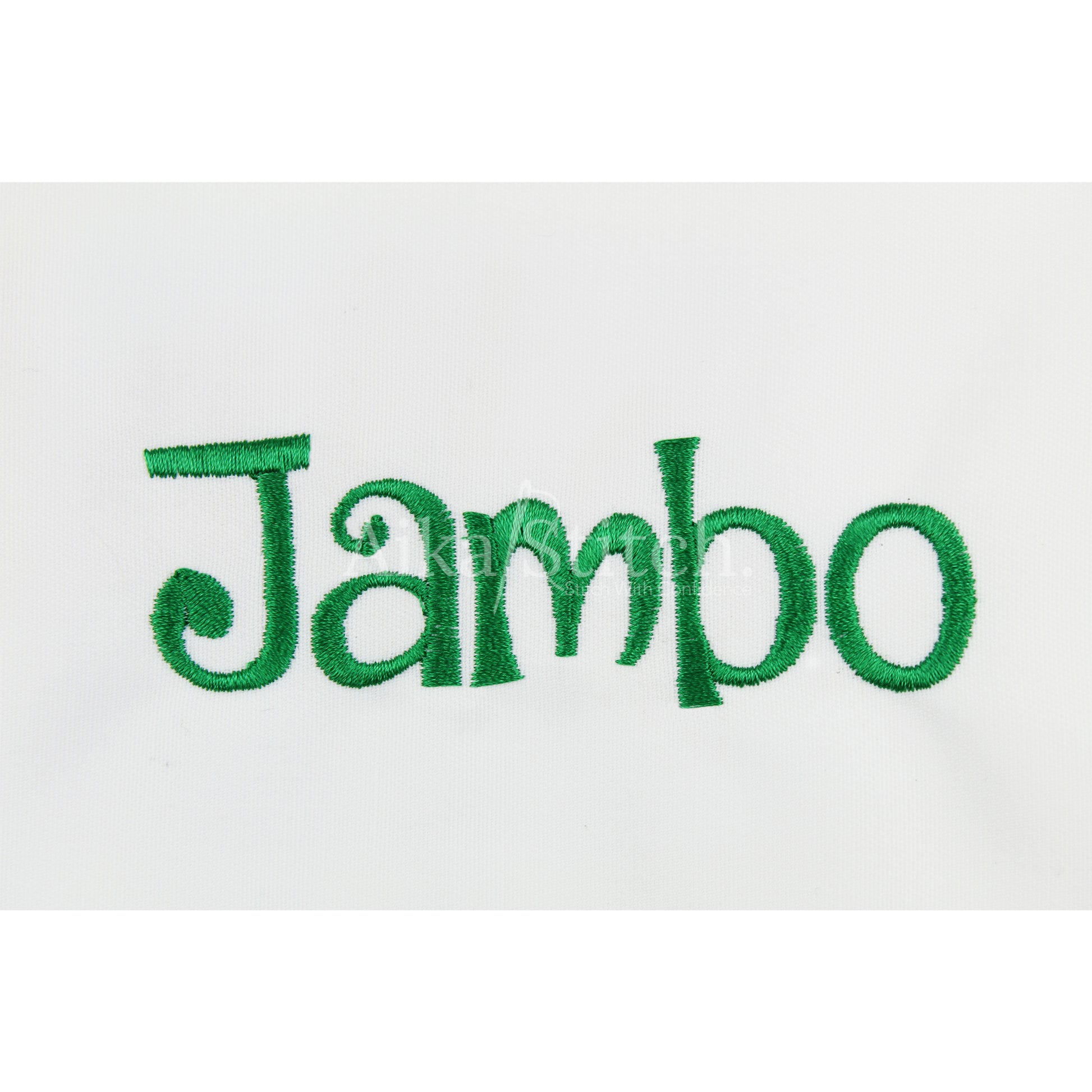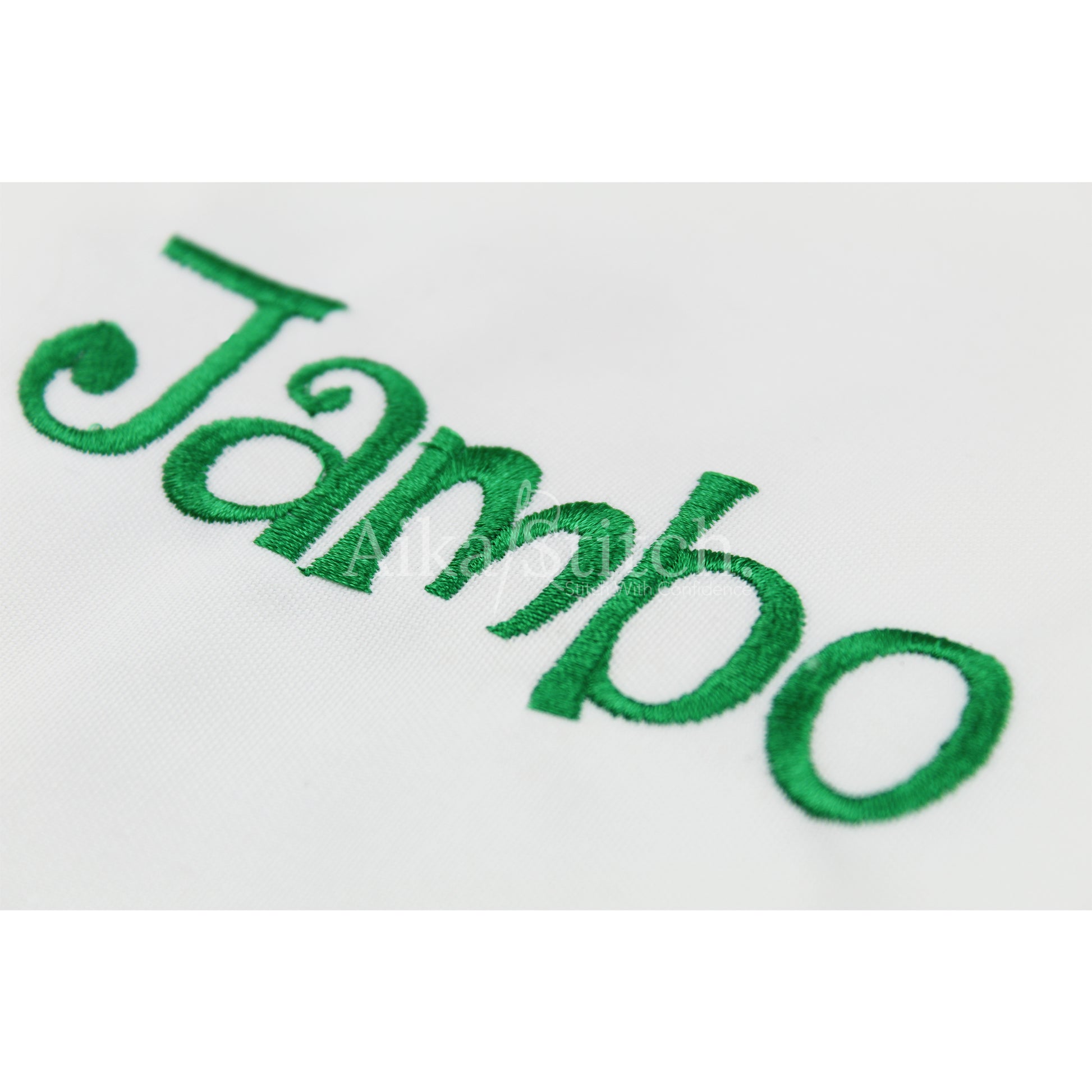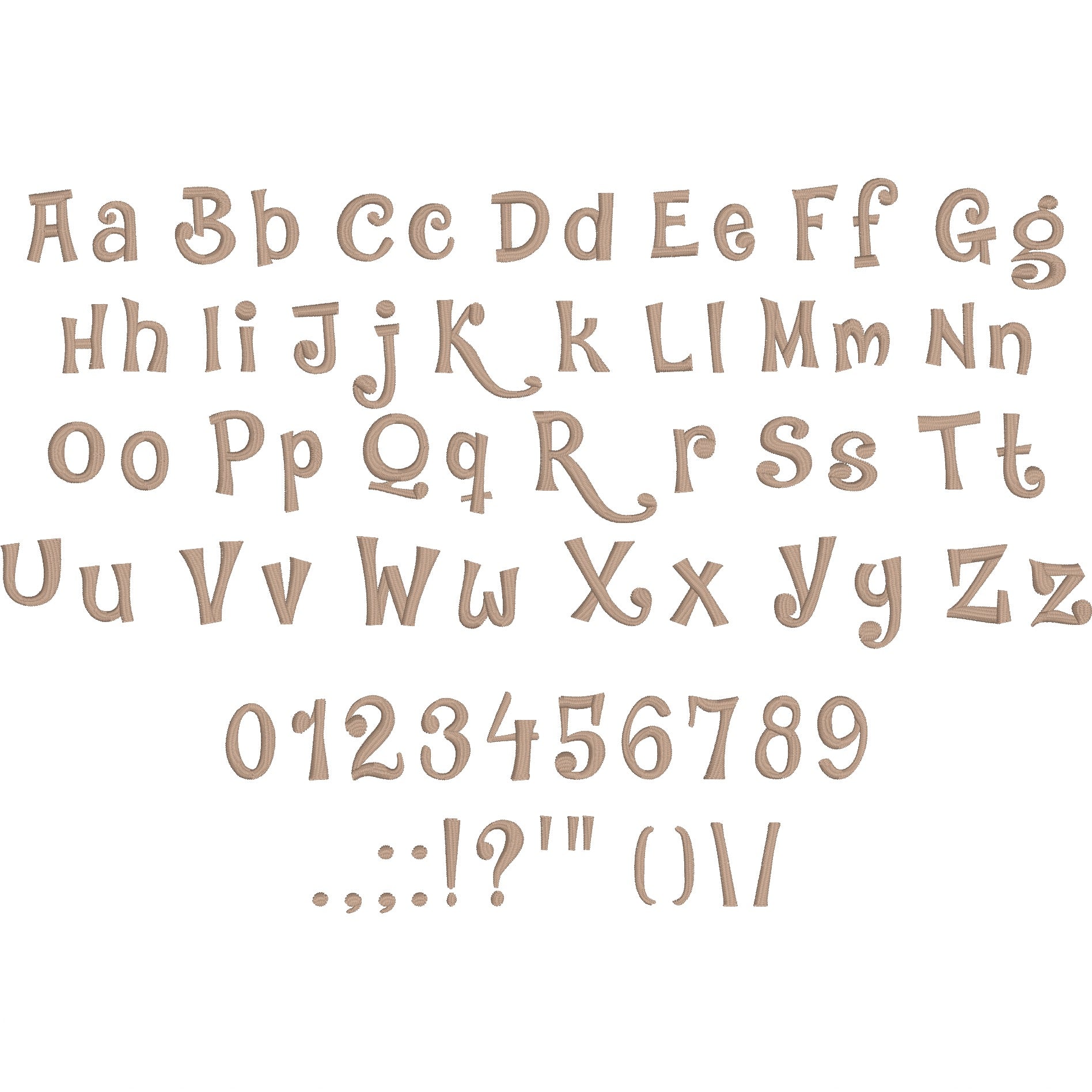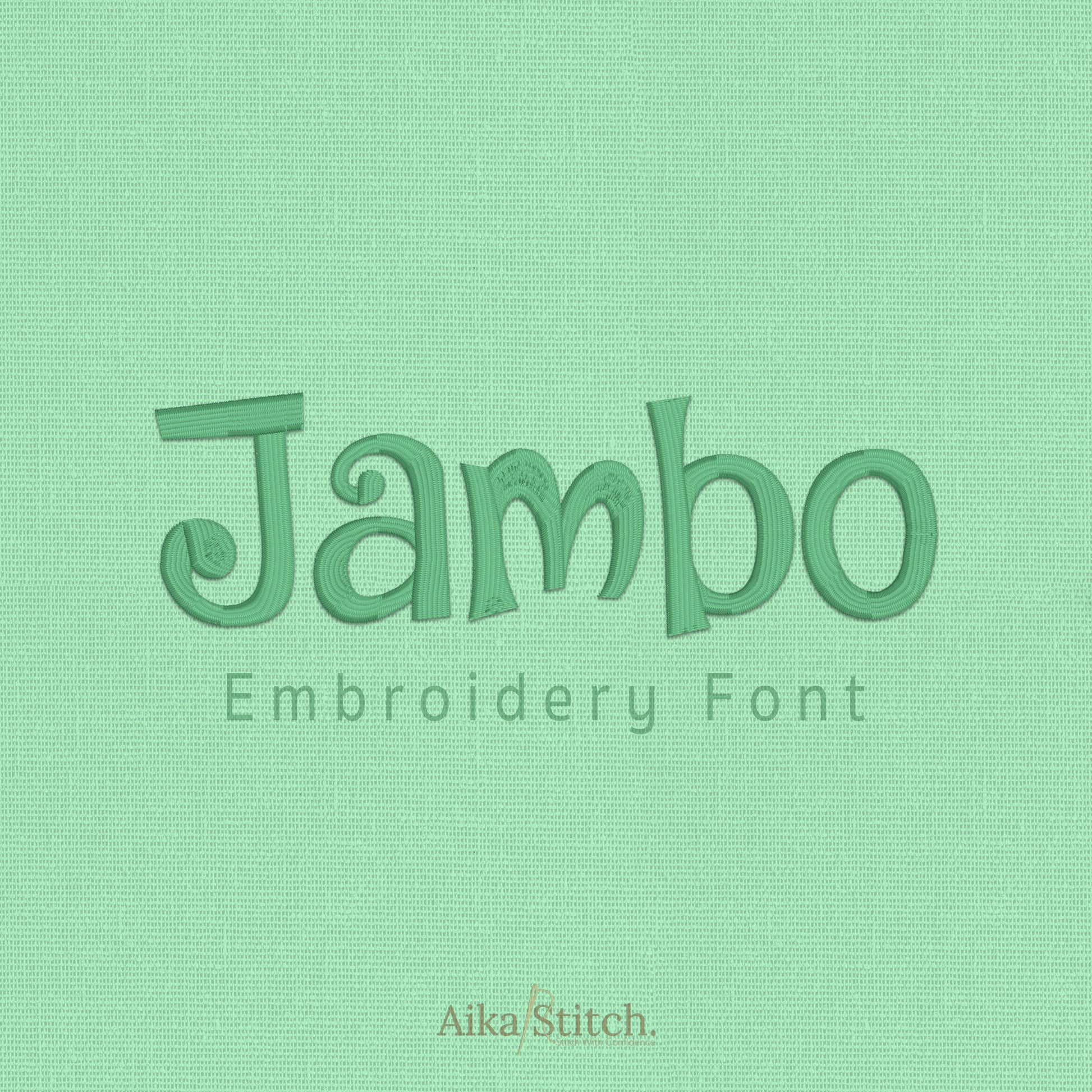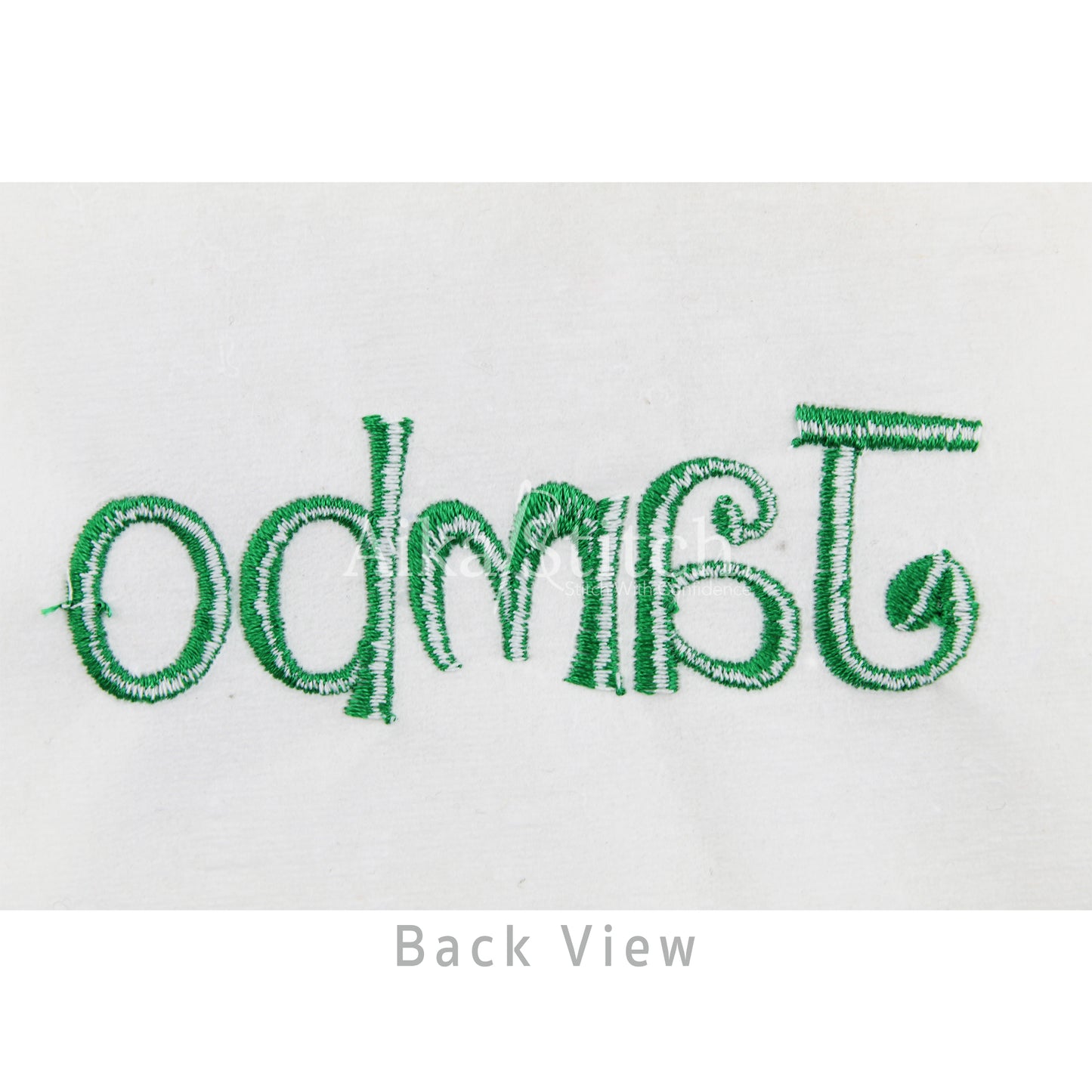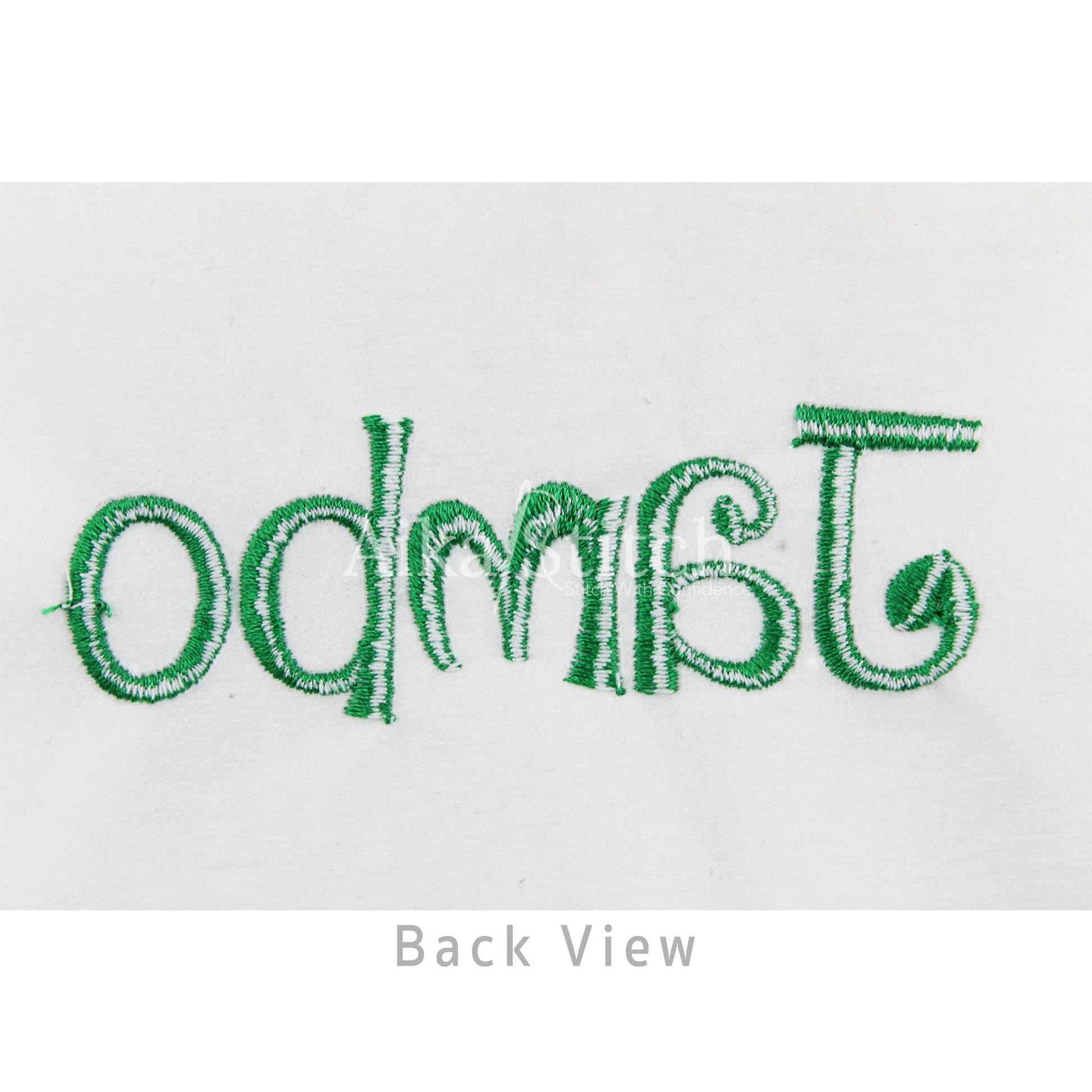
Jambo Fancy Curly Embroidery Font
Jambo is a Fancy Curly machine embroidery font featuring beautiful satin stitch lettering. Perfect for shirts, towels, hats, baby gifts, monograms, and small business embroidery projects.